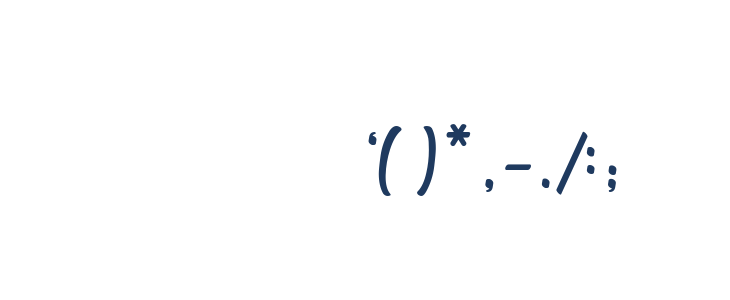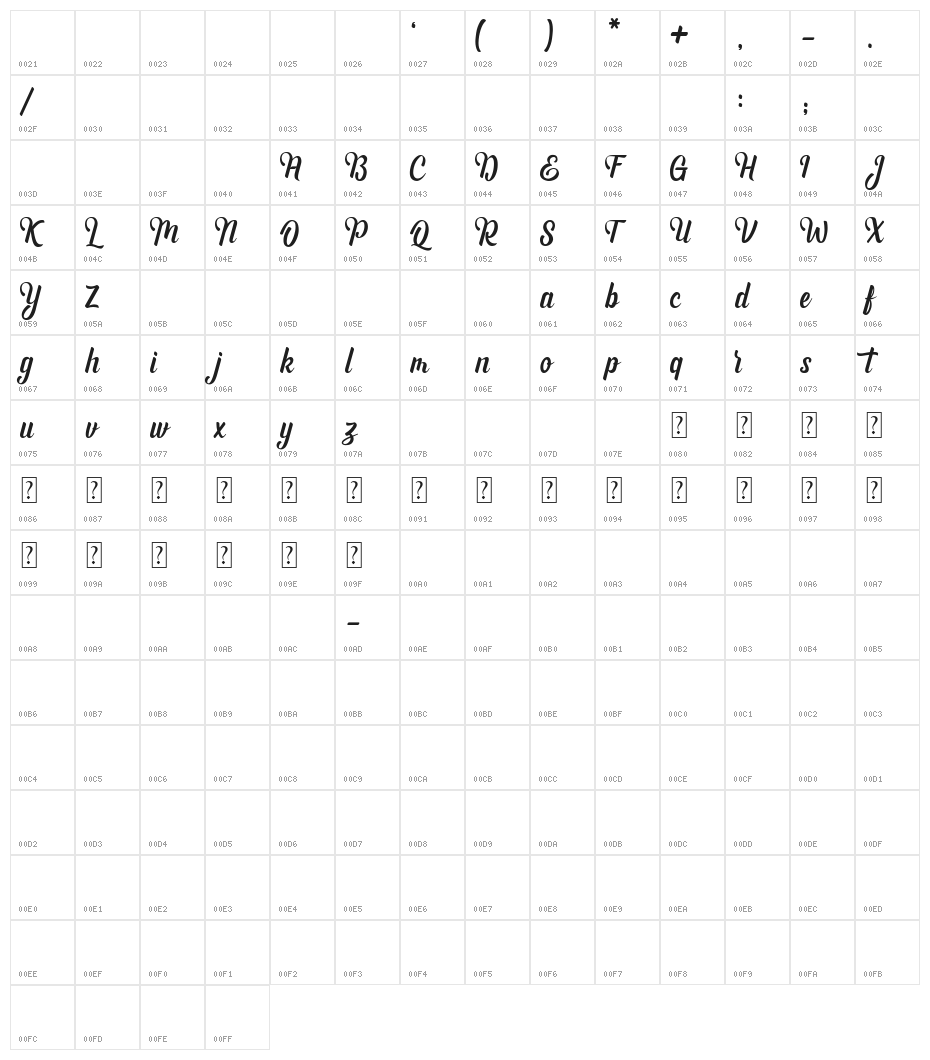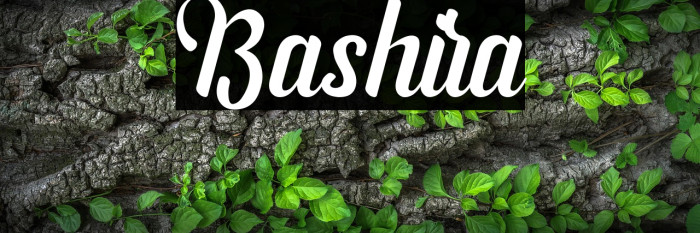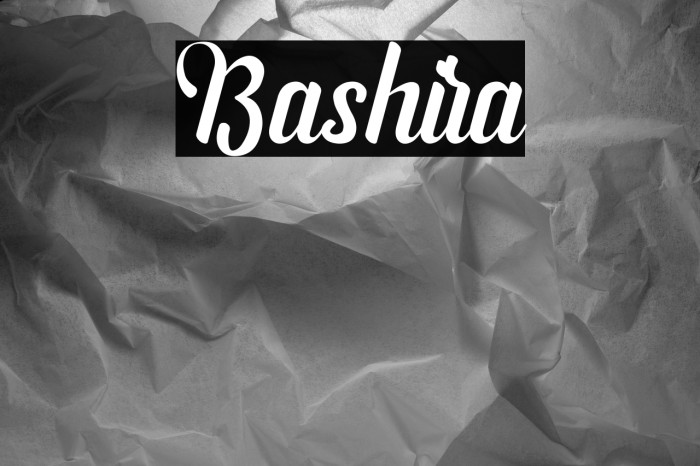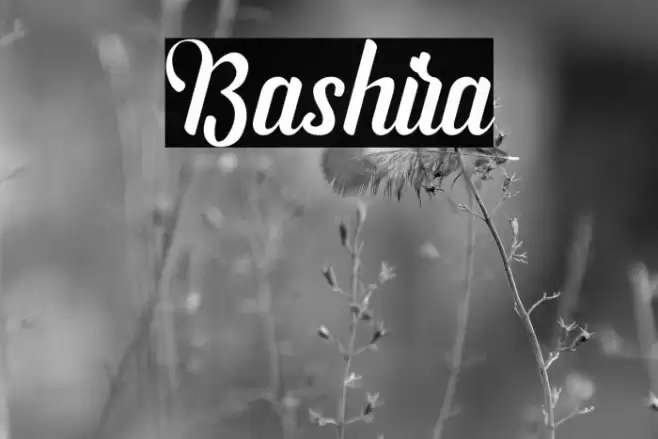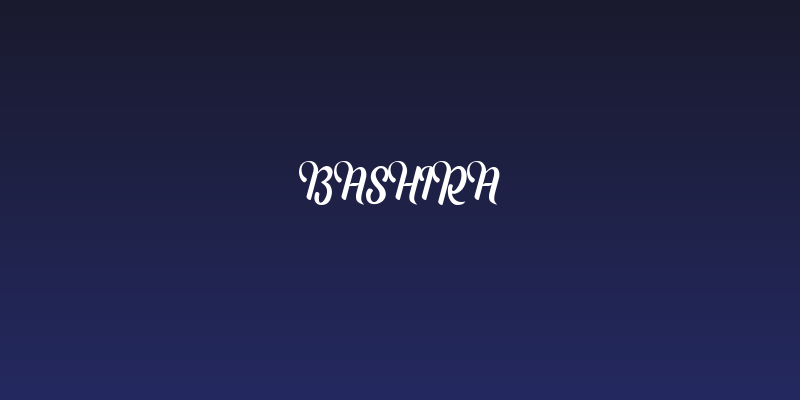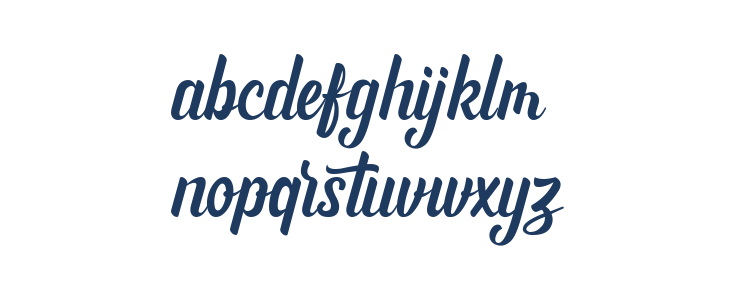
Bashira Font
Bashira Description
This font is a stylish and elegant script typeface with a flowing, cursive design. The letters are interconnected, creating a seamless and fluid appearance. The uppercase characters are ornate, with exaggerated loops and swashes that add a touch of sophistication. The lowercase letters maintain a consistent flow, enhancing readability while preserving the decorative nature. The numerals and special characters are crafted to match the overall aesthetic, ensuring a cohesive look across all text. This font is perfect for projects that require a touch of elegance and flair.
Overall StyleElegant, Decorative
Use CaseLogos, Invitations, Decorative text
Proposed ProjectsIdeal for wedding invitations, branding, greeting cards, and elegant packaging designs.